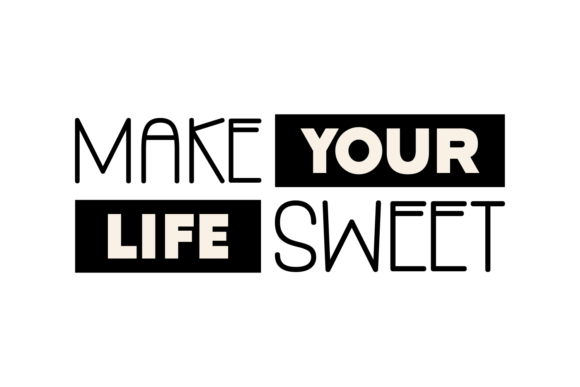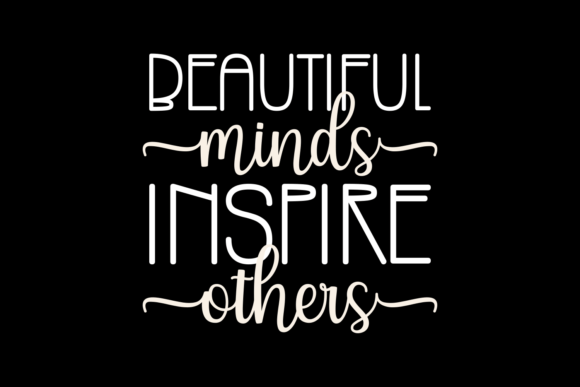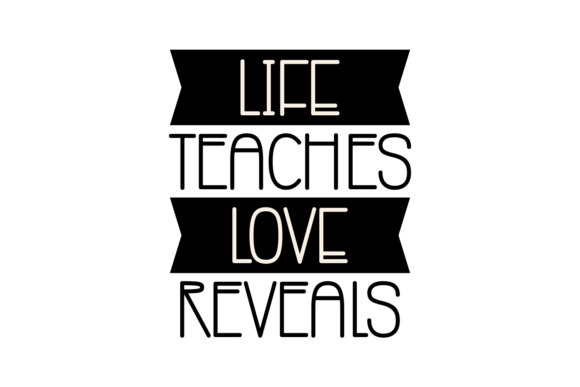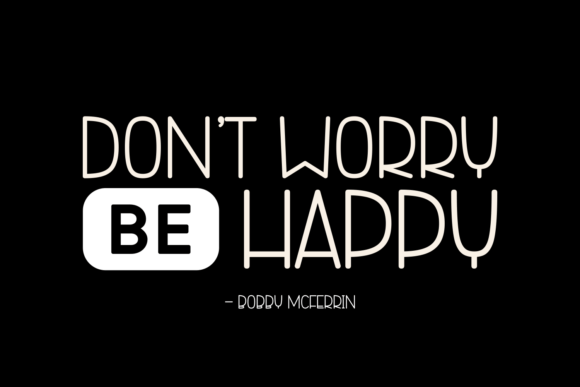
Discover the Elegance of Beautiful Handline Font
Have you ever stumbled upon a design that makes you pause and appreciate the simplicity and beauty of it? Perhaps it was a book cover, a social media post, or a friend’s invitation that caught your eye. Whatever it was, you can’t help but feel drawn to the clean lines, the minimalist vibe, and the overall aesthetic that speaks to you. As designers, we strive to create such moments of wonder, and the right font can make all the difference.
That’s where the Beautiful Handline Font comes in – an elegant and modern sans serif font that’s perfect for adding a touch of sophistication to your designs. With its clean and minimalist vibe, it’s easy to see why it’s a valuable addition to any designer’s toolkit. Whether you’re working on a book cover, a magazine, or a social media post, the Beautiful Handline Font is sure to elevate your design to the next level.
Beautiful Handline Font Key Features
- Font Family: Beautiful Handline Font is a handwritten font designed to add a touch of elegance and sophistication to your designs.
- Size: The font is available in 8 different font sizes, ranging from 12pt to 72pt, allowing for flexibility in design applications.
- Resolution: Supports high-resolution displays, ensuring crisp and clear text rendering even at large sizes.
- Unique Characteristics: Beautiful Handline Font features a unique, handwritten style with subtle imperfections, giving it a personal and organic feel.
- Language Support: Supports multiple languages, including Latin, Cyrillic, and Greek, making it a versatile choice for global designs.
Review of Beautiful Handline Font
Overall, I was really excited to work with the Beautiful Handline Font. It’s a unique and eye-catching choice for any design project.
- The font’s elegant and refined feel is perfect for high-end branding and marketing materials.
- The hand-drawn style adds a touch of personality and whimsy, making it ideal for creative and artistic projects.
- The font is highly legible, even at smaller sizes, making it suitable for a wide range of applications.
- The font can be a bit too ornate for some designs, making it difficult to pair with other fonts without overpowering them.
- The weight of the font can be inconsistent, with some letters appearing thicker or thinner than others.
- The font’s unique style may not be suitable for all audiences, particularly those who prefer more traditional or straightforward fonts.
Overall, I would recommend the Beautiful Handline Font for designers who are looking to add a touch of elegance and sophistication to their projects. However, it may not be the best choice for every design task, and it’s essential to consider the font’s limitations and potential pairing issues.
Use Beautiful Handline Font to add a touch of elegance and sophistication to your designs.
Experiment with different font sizes and styles to create visual interest and balance.
Combine Beautiful Handline Font with other fonts to create a unique and eye-catching typography.
Branding and logos
Editorial and publishing design
Wedding and event design